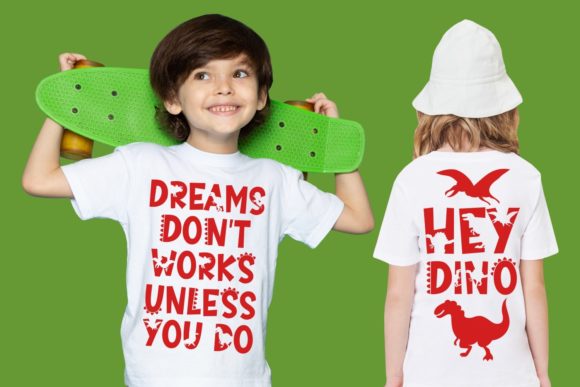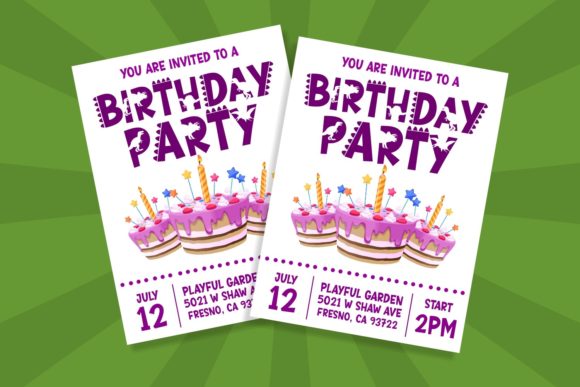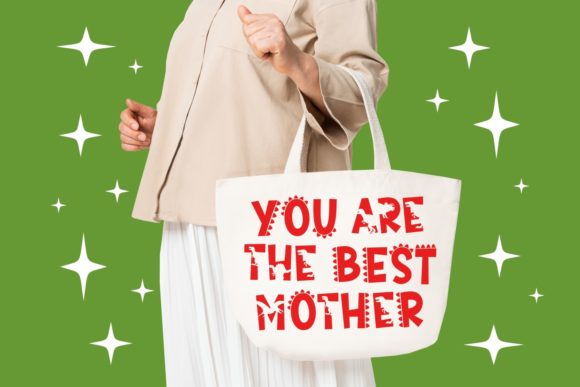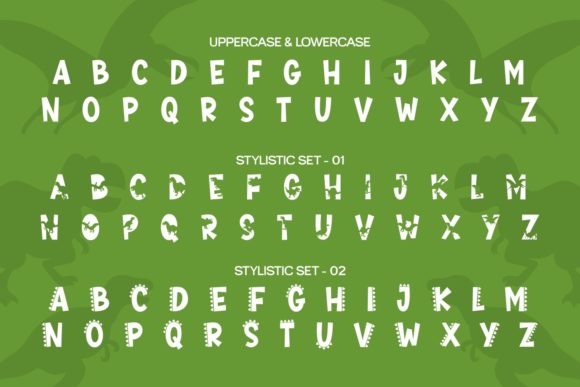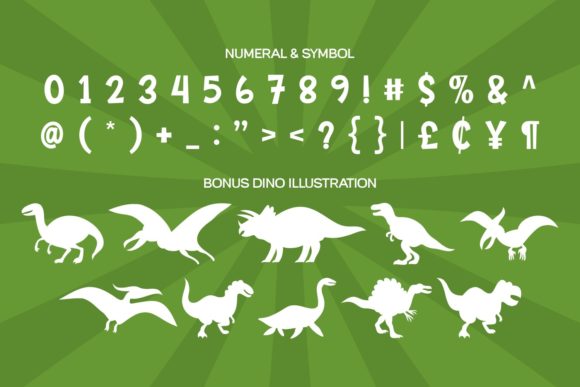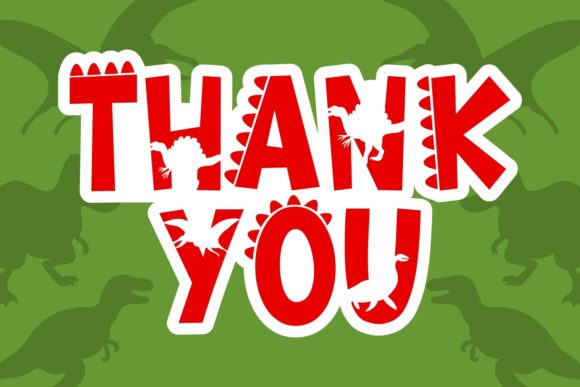
Unleashing the Roar of Creativity with King Dino Font
As a designer, have you ever found yourself brainstorming for the perfect font to bring a playful and energetic vibe to your next project? For me, it’s often a matter of scrolling through my font library, hoping to stumble upon the perfect combination of fun and functionality. And then, it happened – I discovered King Dino Font, a friendly, bold, and thick lettered display font that’s sure to make your designs roar with excitement!
King Dino Font is a versatile and PUA encoded font that’s perfect for children-themed designs, especially when paired with bright and cheerful colors. With its bold and playful style, this font is sure to capture the attention of your audience and leave a lasting impression. As a designer, you’ll love the ease of accessing all the glyphs and swashes with King Dino Font, making it a valuable addition to your creative arsenal.
Key Features of King Dino Font
- Unique Characteristics: King Dino Font features a bold, prehistoric-inspired design, complete with stylized dinosaur silhouettes and distressed textures, adding a touch of nostalgia and playfulness to any project.
- Font Style: The font offers a range of styles, including bold, regular, and italic, allowing users to customize the look and feel of their text to suit their needs.
King Dino Font Review
Overall, the King Dino Font is an interesting addition to the world of typography. It’s clear that the designer had a unique vision for this font, and it shows in the final product.
- Distinctive design: The King Dino Font has a bold, prehistoric feel that’s sure to grab attention.
- Customizable: The font comes with a range of styles and weights, making it easy to tailor to your specific needs.
- Fun for creative projects: Whether you’re designing a children’s book or a website for a dinosaur-themed business, the King Dino Font is a great choice.
Limitsations ⚠️
- Readability: While the font is visually striking, it may be difficult to read in certain contexts, especially at smaller sizes.
- Limited versatility: The King Dino Font may not be the best choice for formal or professional projects, as it’s more suited to creative or whimsical applications.
- May not be suitable for body text: Due to its bold and playful nature, the King Dino Font may be better suited for headings or titles rather than large blocks of body text.
Overall, the King Dino Font is a fun and creative choice for the right project. While it may have some limitations, it’s a great option for designers looking to add some personality to their work.
Practical Application Guide for King Dino Font
Getting the Most Out of King Dino Font
For optimal results, use King Dino Font in bold or italic styles to add emphasis to your text.
King Dino Font is ideal for use in children’s book illustrations, party invitations, and other playful designs.
Use it to add a fun and adventurous feel to your text-based designs.